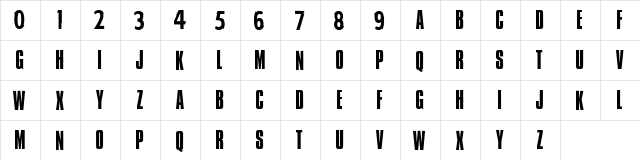
NHL Minnesota Regular Font Preview
NHL Minnesota Regular
Design Context for NHL Minnesota Typeface
NHL Minnesota is a composed and adaptable typeface that performs quietly and consistently across a wide range of design contexts.
Pro Tip: Use NHL Minnesota in both headline and body roles to test its range before committing to a single application.